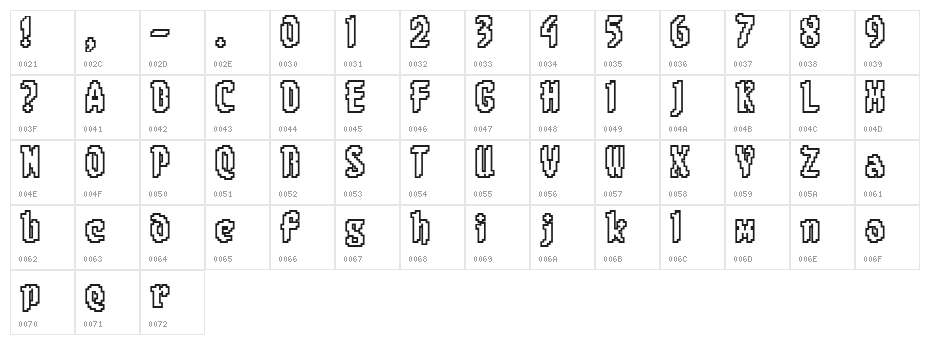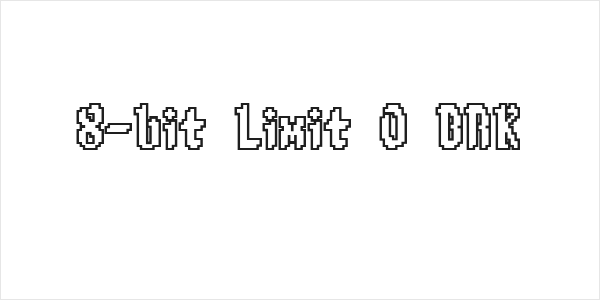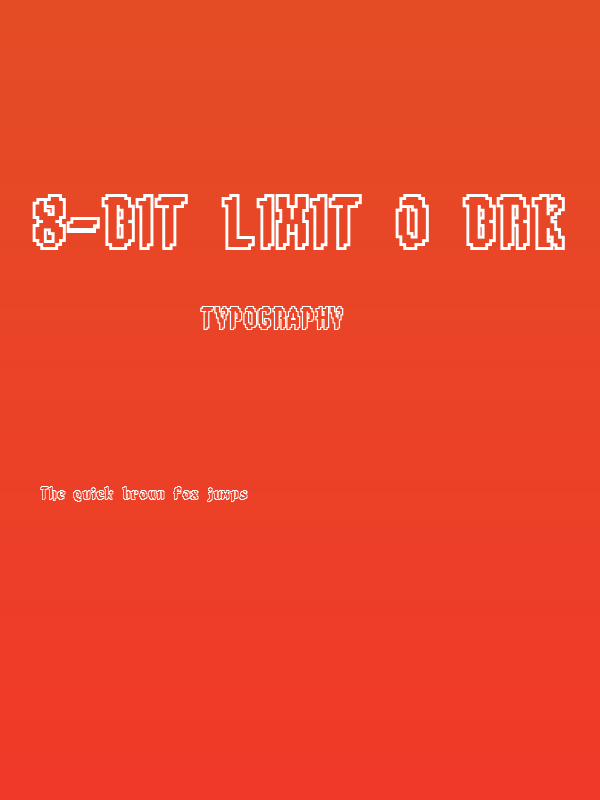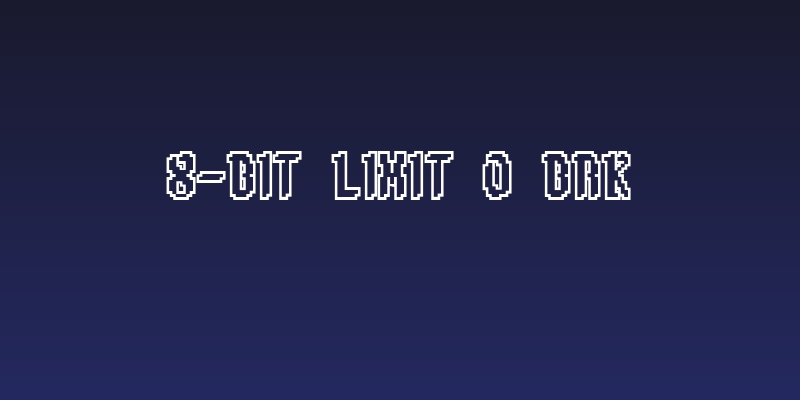
8-bit Limit O BRK Font
8-bit Limit O BRK Description
This font embodies a retro, pixelated style reminiscent of early video game graphics. Each character is constructed with a blocky, pixel-like appearance, creating a nostalgic feel that is both playful and bold. The uppercase and lowercase letters maintain a consistent pixelated structure, with sharp, angular edges that enhance the 8-bit aesthetic. Numbers and special characters follow the same design principles, ensuring uniformity across all glyphs. This font is ideal for projects that aim to evoke a sense of nostalgia or pay homage to classic gaming culture.
| Proposed Projects | Perfect for video game designs, retro-themed posters, digital art projects, and any creative work that seeks to capture the essence of vintage gaming. |